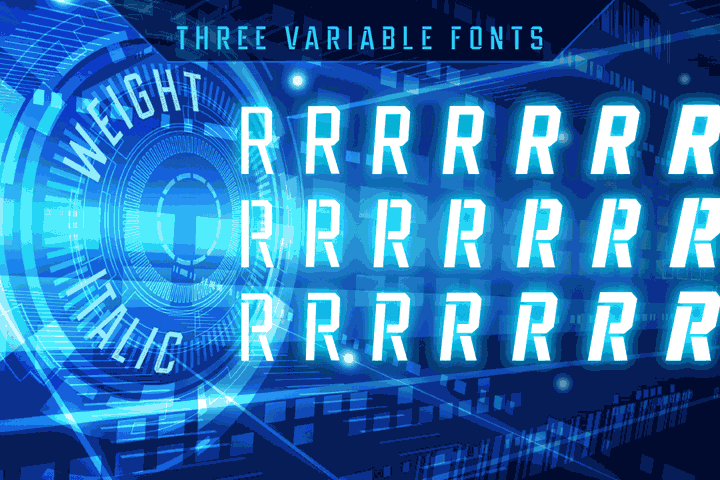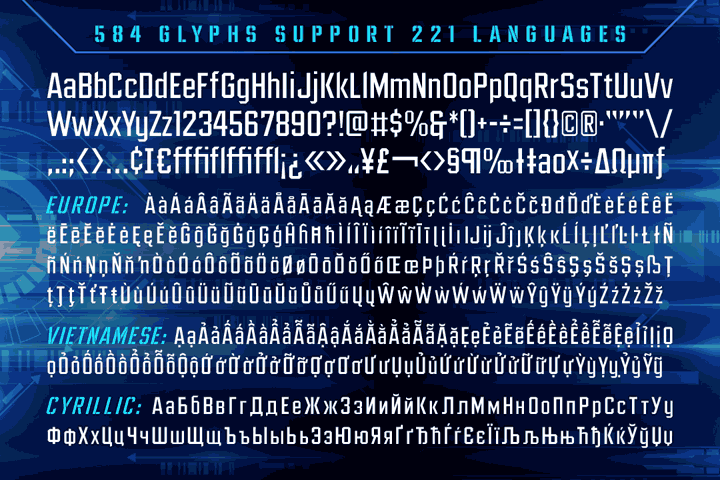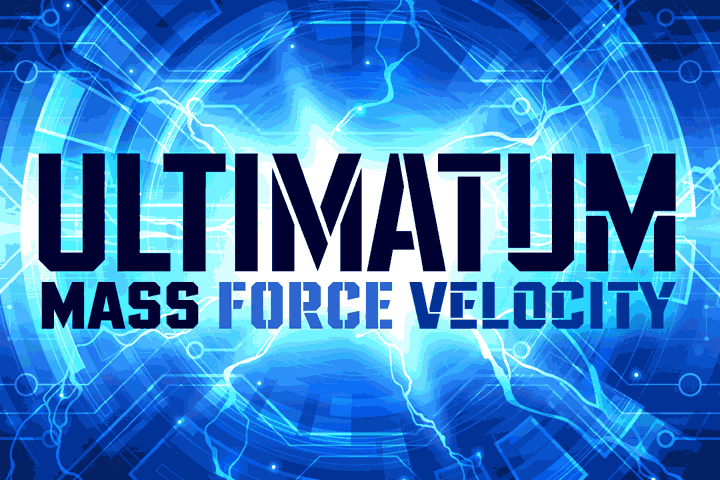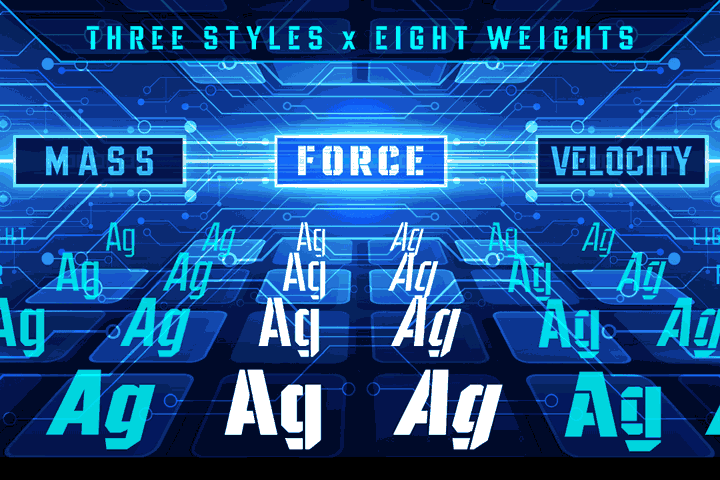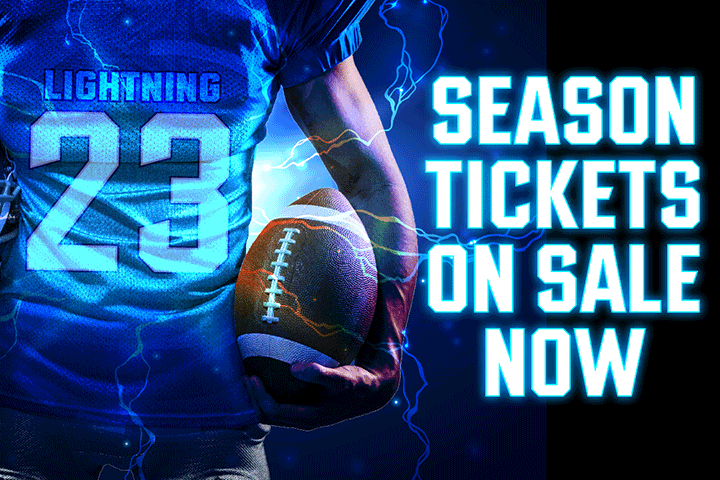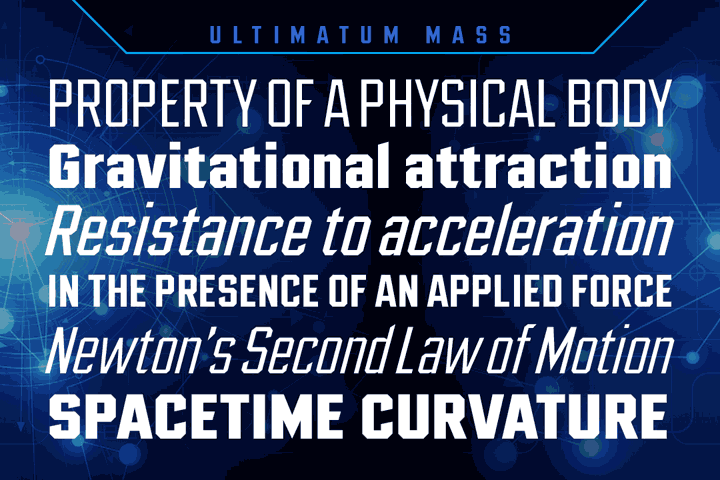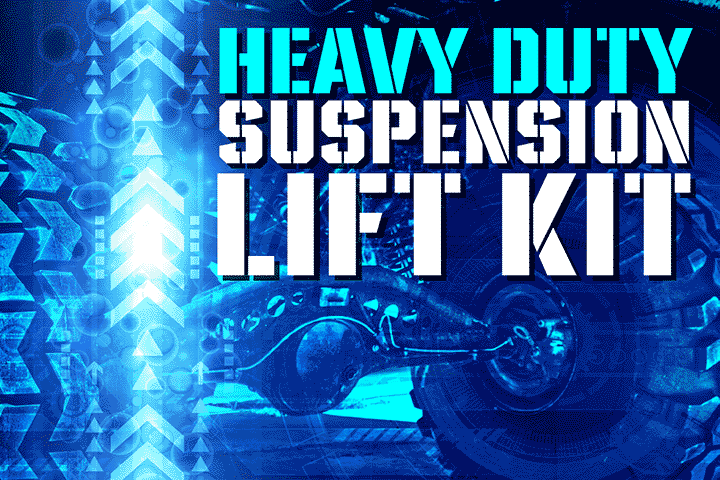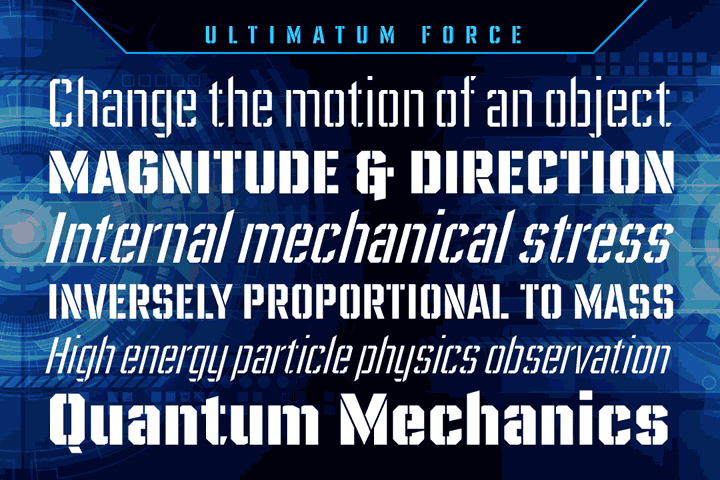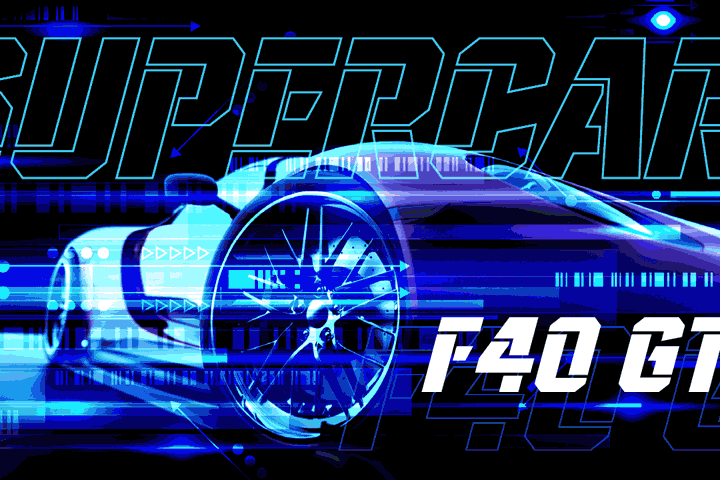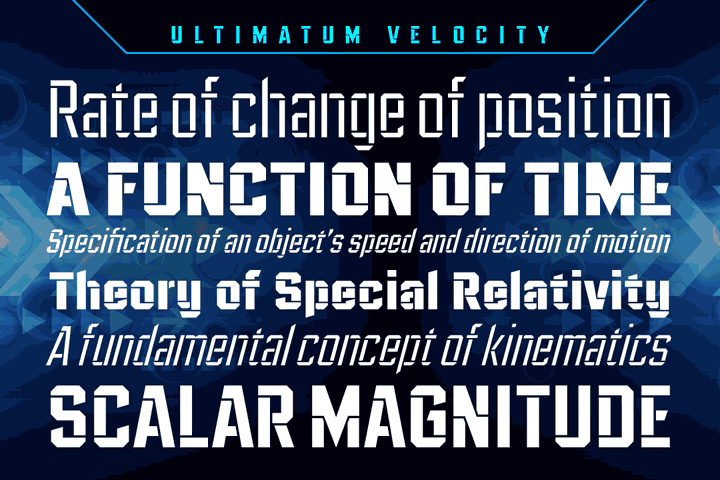
Ultimatum MFV
ALERT: Comicraft's Mad Font Scientist John Roshell and Lead Lab Assistant Drewes McFarling have applied an Unstoppable Force to our Immovable Font ULTIMATUM, successfully splitting it into a family of three fonts!
Here’s the secret formula: MASS retains the dynamic details of the original with flat, angled corners; FORCE cooperates with your demands for a vertical slice of the action; and VELOCITY was tired of waiting for a compromise and cut right across its horizontals.
The complete Ultimatum MFV family features three styles of eight weights for a total of 24 fonts, each with support for 221 languages including Western & Central Europe, Vietnamese & Cyrillic. And three Variable Fonts provide precise control of Weight & Italic slant.